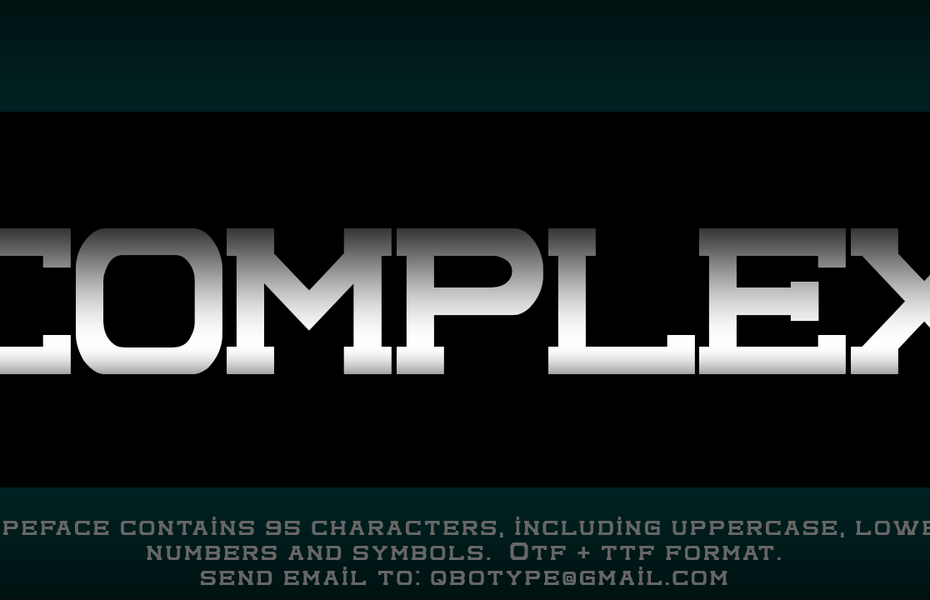
Unleashing Creativity with Complex Font
Have you ever stared at a blank canvas, trying to conjure up the perfect idea? The blank page can be daunting, but it’s in those moments of uncertainty that our creativity is sparked. It’s as if the universe is waiting for us to make the first move, to set the tone for something truly remarkable. And for designers, that first move often starts with the right font.
Introducing Complex v15, a bold serif font designed to evoke emotion and set the tone for any project. With its unique blend of elegance and sophistication, Complex Font is the perfect companion for designers looking to add depth and complexity to their work.
For designers, having access to a versatile and high-quality font like Complex Font is invaluable. It’s a tool that can elevate a project from ordinary to extraordinary, and with its versatility, it can be used across a wide range of applications, from print to digital media.
Complex Font Key Features
- Unique Character Set: Includes a comprehensive set of characters, including accents, diacritics, and special characters, making it suitable for multilingual designs.
- Variable Font Support: Designed with variable font technology, allowing for seamless scalability and customization across various font sizes and styles.
- Font Weight and Style Options: Offers a range of font weights (Light, Regular, Bold, Black) and styles (Italic, Oblique) to enhance design versatility.
Complex Font Review
Overall, I’d say the Complex Font is an interesting choice for designers. There are some aspects that really shine, but there are also some limitations to consider.
- Unique Character: The font has a distinctive, complex feel to it that can add a lot of character to a design.
- High-Quality Rendering: The font renders well in various sizes and styles, making it suitable for a range of applications.
- Good Legibility: Despite its complex nature, the font is generally easy to read, even at smaller sizes.
- Limited Font Sizes: The font doesn’t perform as well at very large or very small sizes, which can be a problem in certain design contexts.
- Not Ideal for Small Text: The font’s complexity can make it difficult to read in very small text sizes, such as in body text or captions.
I think the Complex Font is a solid choice for designers who want to add some visual interest to their work. However, it’s not a one-size-fits-all solution, and designers should carefully consider their needs before using it.
Tips for Getting the Most Out of Complex Font
Use Complex Font to add visual interest to your designs and create a unique brand identity.
Experiment with different font sizes, colors, and styles to achieve a cohesive look.
Combine Complex Font with other design elements, such as images and shapes, to create a visually appealing design.
Use Complex Font for:
- Marketing materials, such as brochures and flyers
- Website headers and footers
- Social media graphics and advertisements
Alternatives to Complex Font for Designers
1. Script Font
Script fonts are highly decorative and cursive fonts often used for headings, titles, or short paragraphs. They are ideal for adding a touch of elegance or sophistication to a design.
Comparison to Complex Font: While both fonts can be used for decorative purposes, Script Font is more flowing and cursive, whereas Complex Font is often more geometric and intricate.
2. Brush Font
Brush fonts are designed to mimic the look of hand-painted or brush-written text. They are often used for creating a casual, handwritten feel in a design.
Comparison to Complex Font: Brush Font is more relaxed and casual, whereas Complex Font is often more formal and intricate.